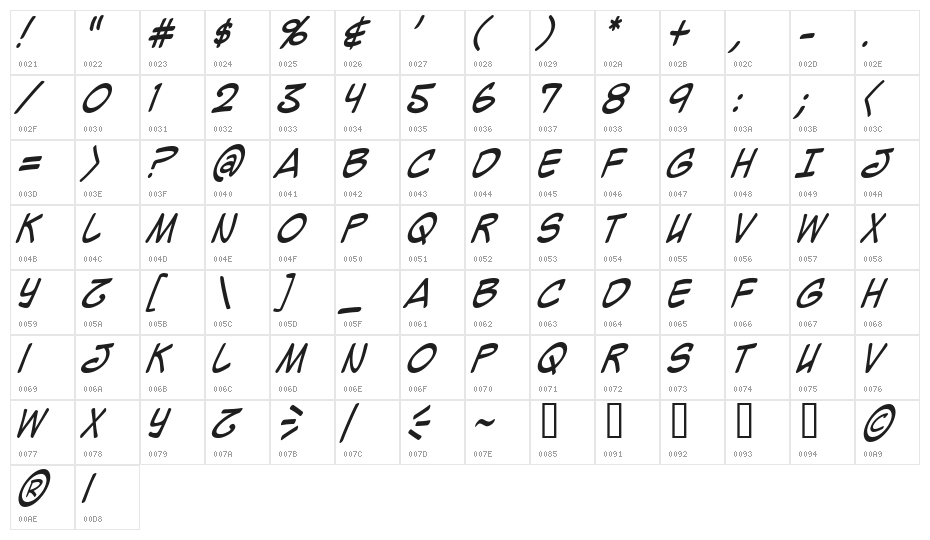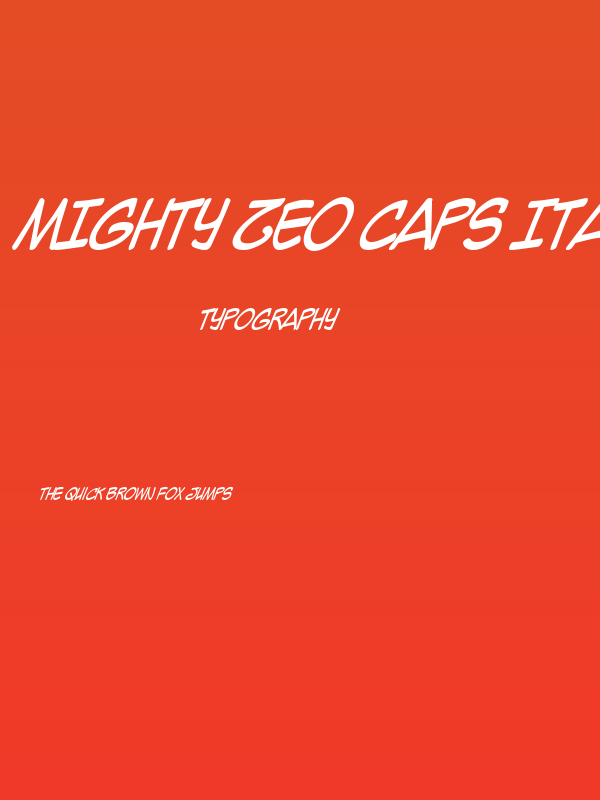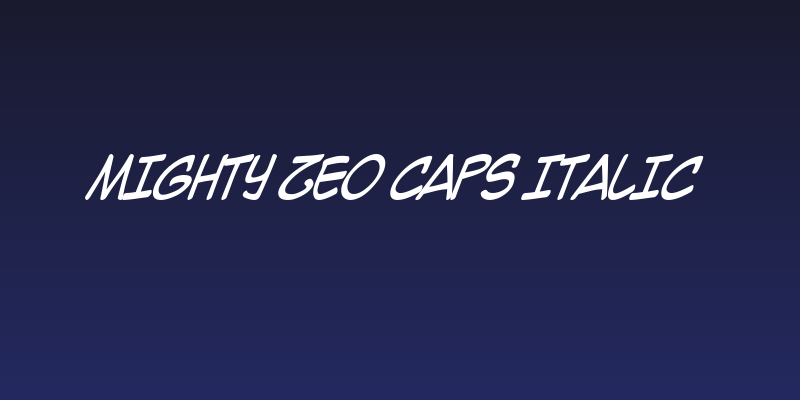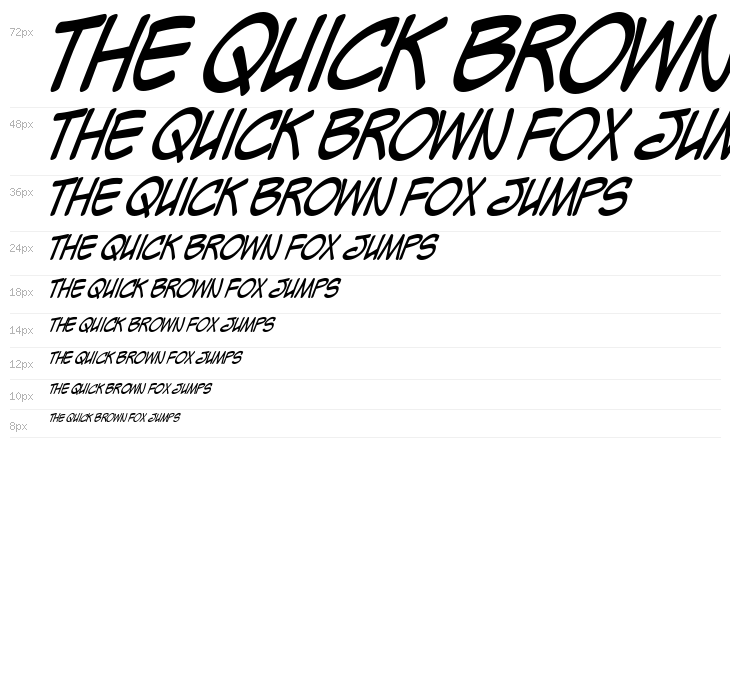
Mighty Zeo Caps Italic Font
Mighty Zeo Caps Italic Description
This font features a bold, italicized style with a dynamic and energetic appearance. The letters are slanted, creating a sense of movement and speed. The strokes are thick and consistent, giving the font a strong presence. The characters are closely spaced, contributing to its compact and cohesive look. The font includes both uppercase and lowercase letters, numbers, and a variety of special characters, making it versatile for different uses.
| Proposed Projects | Ideal for sports branding, dynamic posters, and eye-catching headlines. |